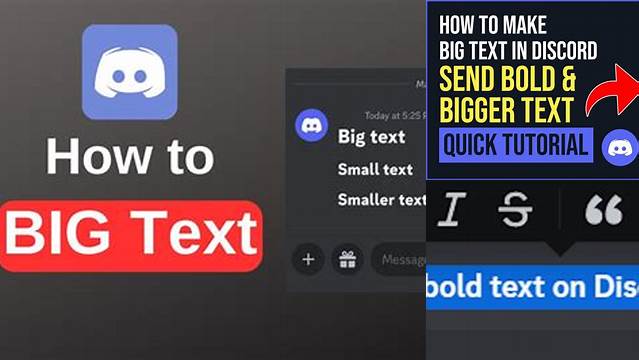
Discord Font Commands: Make Text Big & Bold!
Hey guys! Ever wondered how to make your text really pop on Discord? You know, make it big and bold so everyone notices? Discord's got some nifty little tricks up its sleeve when it comes to formatting, and today, we're diving deep into the world of Discord font commands, specifically how to make your text BIG. Whether youâre trying to emphasize a point, create a catchy announcement, or just want to add some flair to your messages, mastering these commands is a game-changer. Letâs get started and explore all the ways you can level up your Discord text game! Because letâs face it, sometimes you just need to shout⊠in text.
Understanding Discord Text Formatting
Before we jump into the nitty-gritty of making text big, itâs important to understand the basics of Discord text formatting. Discord uses Markdown, a lightweight markup language, to format text. This means you can use simple symbols and commands to change the appearance of your text, like making it italic, bold, or even adding code blocks. Knowing these basics will help you understand how the âbig textâ command works and how to combine it with other formatting options. Think of Markdown as your secret weapon for crafting killer Discord messages. You can create everything from simple emphasis to complex layouts just by using a few special characters.
Markdown Basics in Discord
Markdown in Discord is super user-friendly. To make text italic, you simply surround it with single asterisks (). For bold text, use double asterisks (). Want both? Use triple asterisks () for bold italics. You can also use underscores (_) for italics and bold, but asterisks are the more common method. These are the building blocks of text formatting, and mastering them will make your messages so much more engaging. Remember, the key is consistency, so pick a style and stick with it to keep your Discord conversations clean and readable. Plus, it adds a touch of professionalism, even in a casual environment.
How Discord Interprets Formatting Commands
Discordâs text parser is pretty smart. It recognizes the Markdown syntax and transforms it into the formatted text you see. When you type something like hello, Discord sees the double asterisks and knows to render âhelloâ in bold. The same goes for other formatting options, like code blocks and quotes. The beauty of this system is that itâs simple to learn but powerful in its capabilities. Understanding how Discord interprets these commands gives you the control to format your messages exactly how you want them. No more plain, boring text â itâs time to unleash your inner text artist!
The Secret to Making Text Big on Discord
Okay, guys, here's the magic trick you've been waiting for: making text BIG on Discord. Itâs actually pretty straightforward, but it's a game-changer when you want to grab attention. The secret lies in using the code block formatting with a little extra zing. This method not only increases the size of the text but also changes its font, making it stand out even more. Letâs break down the exact steps so you can start using this trick right away.
Using Code Blocks for Larger Text
The key to making text big on Discord is by using code blocks. There are two types of code blocks: single-line and multi-line. For making text big, weâre going to use multi-line code blocks. To create a multi-line code block, you need to use three backticks (```) before and after your text. But hereâs the twist: if you add a character like a single quote (') after the opening backticks, before your text, Discord will render the text in a larger font size. Itâs like a secret handshake for big text!
Step-by-Step Guide to Big Text
Ready to make some big text magic? Hereâs a step-by-step guide:
- Start with three backticks (```).
- Immediately after the backticks, add a single quote (').
- Type your text.
- Finish with three more backticks (```).
For example, if you type 'Hello Discord!, Discord will display âHello Discord!â in a larger font size. This simple trick can make a huge difference in how your messages are perceived. Give it a try and see for yourself!
Examples of Big Text in Action
Letâs look at some examples to see how big text can be used effectively. Imagine youâre announcing a server event. Using big text for the event title can instantly grab everyoneâs attention: 'NEW EVENT TONIGHT!. Or maybe you want to highlight an important rule: 'READ THE RULES!. Big text is also great for adding emphasis in conversations or making humorous comments stand out. The possibilities are endless, so get creative and experiment with different ways to use this formatting trick.
Combining Big Text with Other Formatting Options
Now that you know how to make text big, let's take it to the next level by combining it with other formatting options. This is where things get really interesting! You can use italics, bold, and even emojis within your big text to create truly eye-catching messages. Think of it as mixing and matching flavors to create the perfect dish â the same applies to text formatting.
Can You Use Bold and Italics with Big Text?
Yes, you absolutely can! You can use bold and italics within your big text by adding the appropriate Markdown symbols. For example, to make your big text bold, you would use double asterisks (). To make it italic, use single asterisks (). To make it both bold and italic, use triple asterisks (). So, if you wanted to say âHello Discord!â in big, bold text, youâd type '**Hello Discord!**. Itâs like adding extra layers of emphasis to your already attention-grabbing text.
Final Thoughts on Expressing Yourself on Discord
Discord is more than just a chat platform; itâs a vibrant community where people connect, share ideas, and build relationships. Effective communication is at the heart of any successful community, and mastering Discordâs text formatting options is a crucial step in expressing yourself clearly and creatively. So, embrace the tools at your disposal, experiment with different styles, and find what works best for you. Whether youâre a seasoned Discord pro or just getting started, thereâs always something new to learn and explore. Happy formatting, guys! And may your Discord messages always shine! Because in the end, itâs all about making your voice heard in a way thatâs both impactful and engaging. Now go out there and make some textual magic happen!